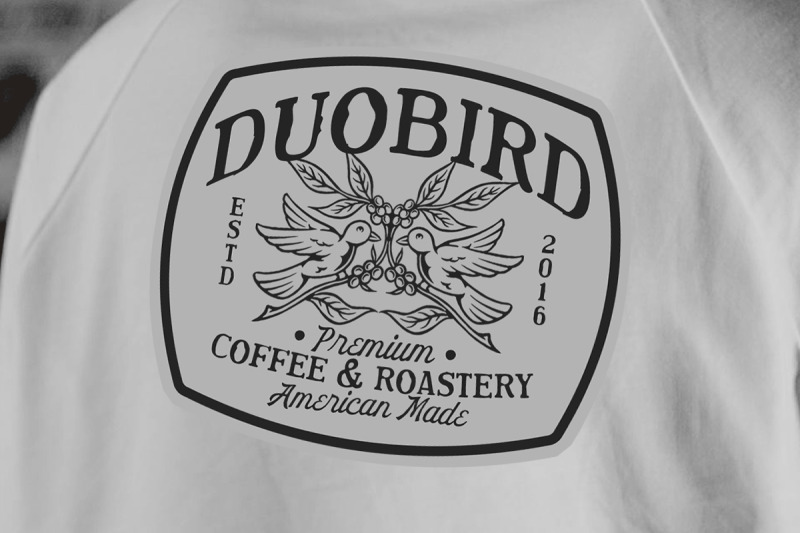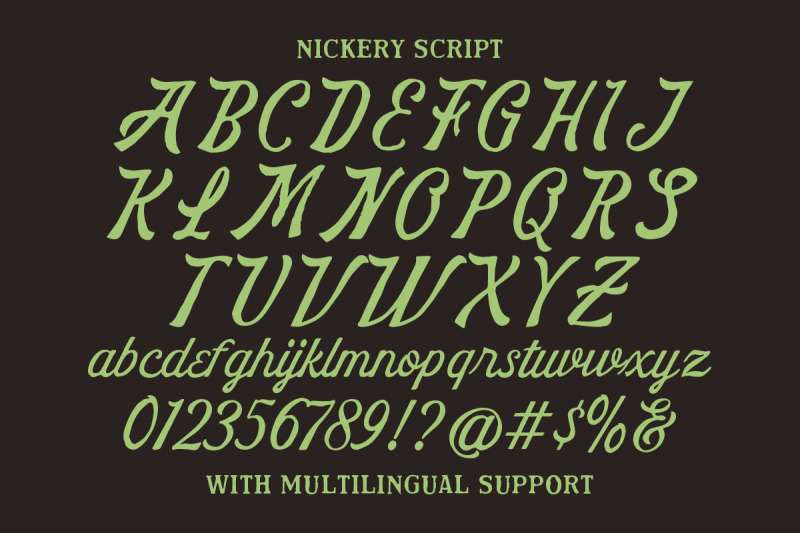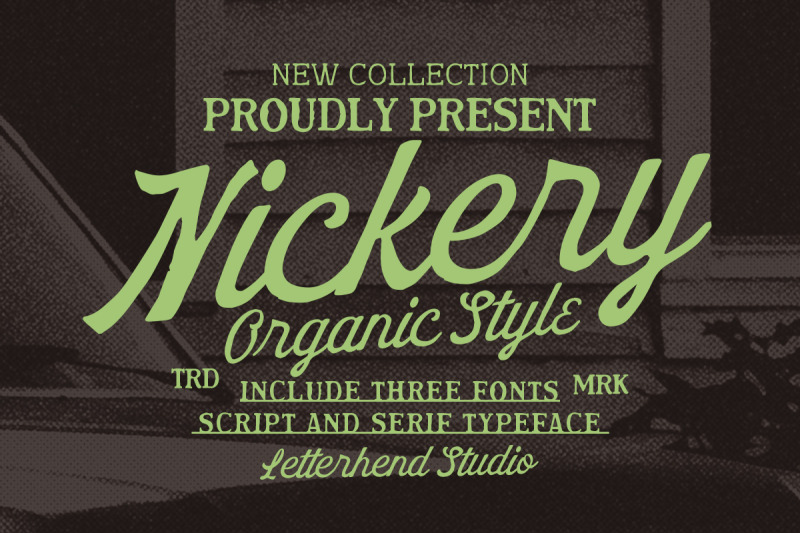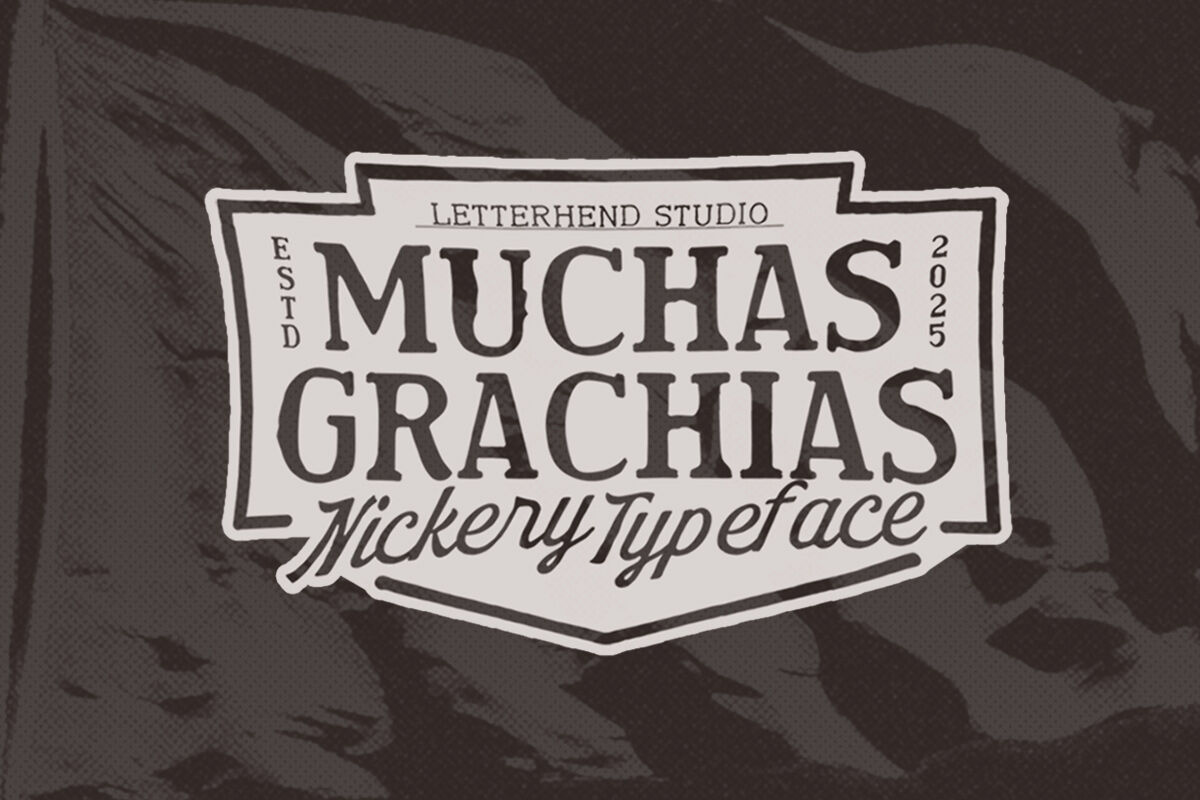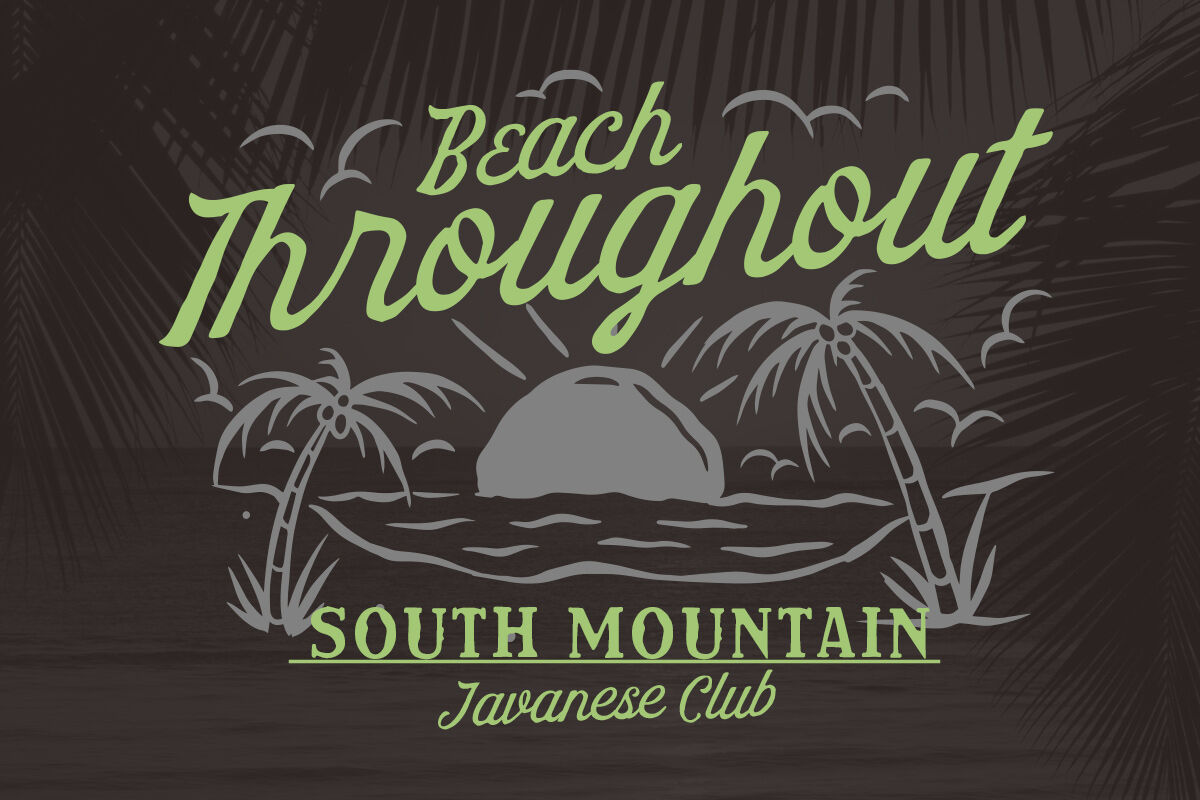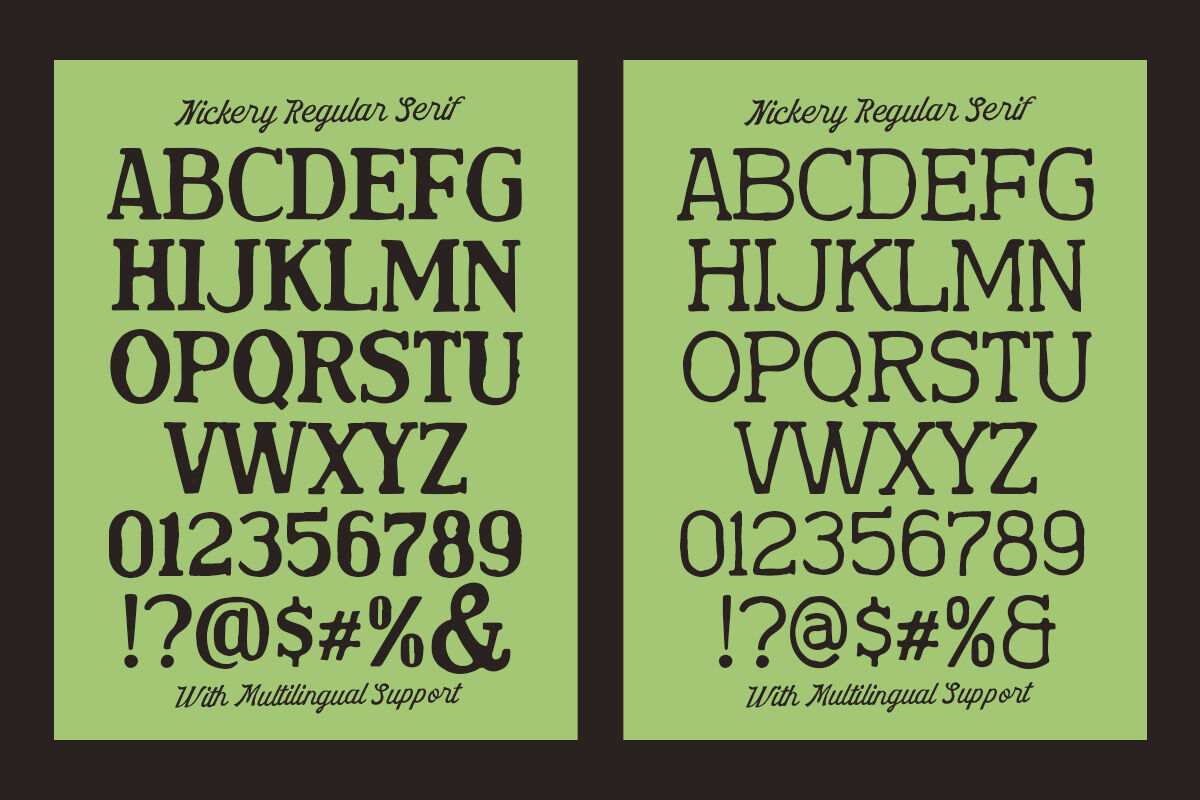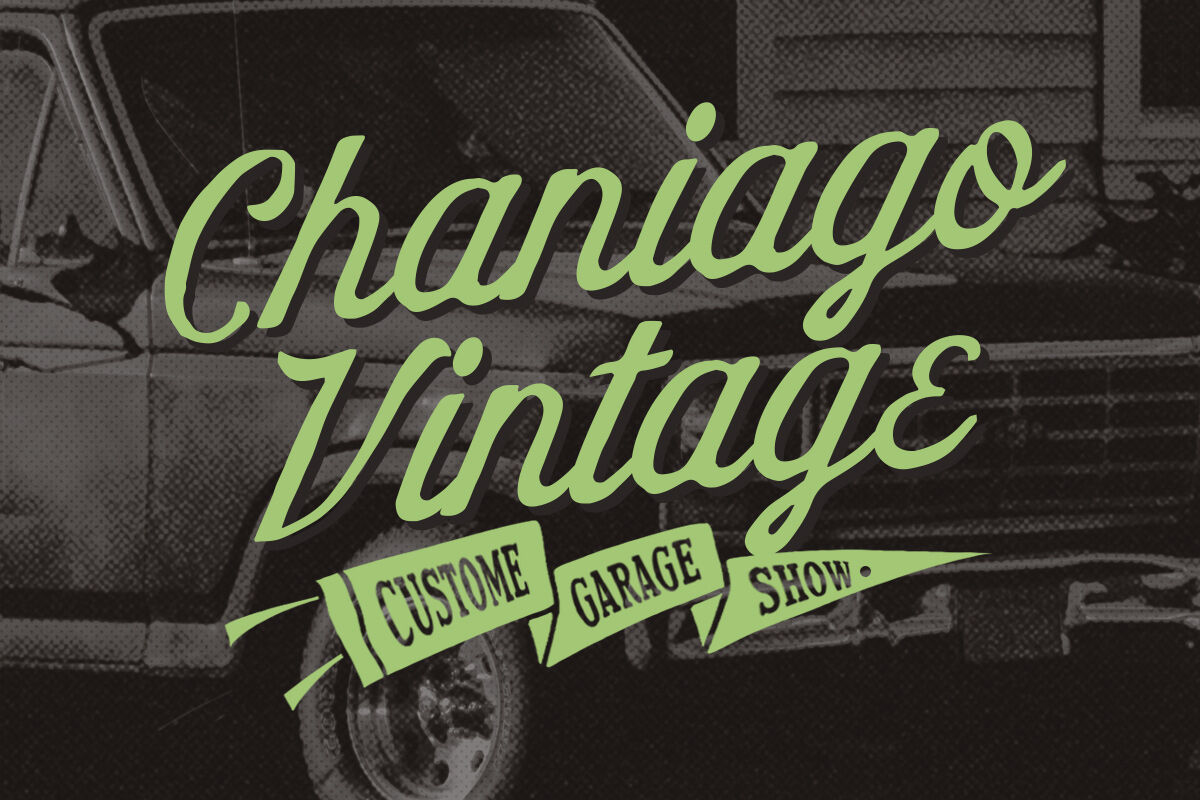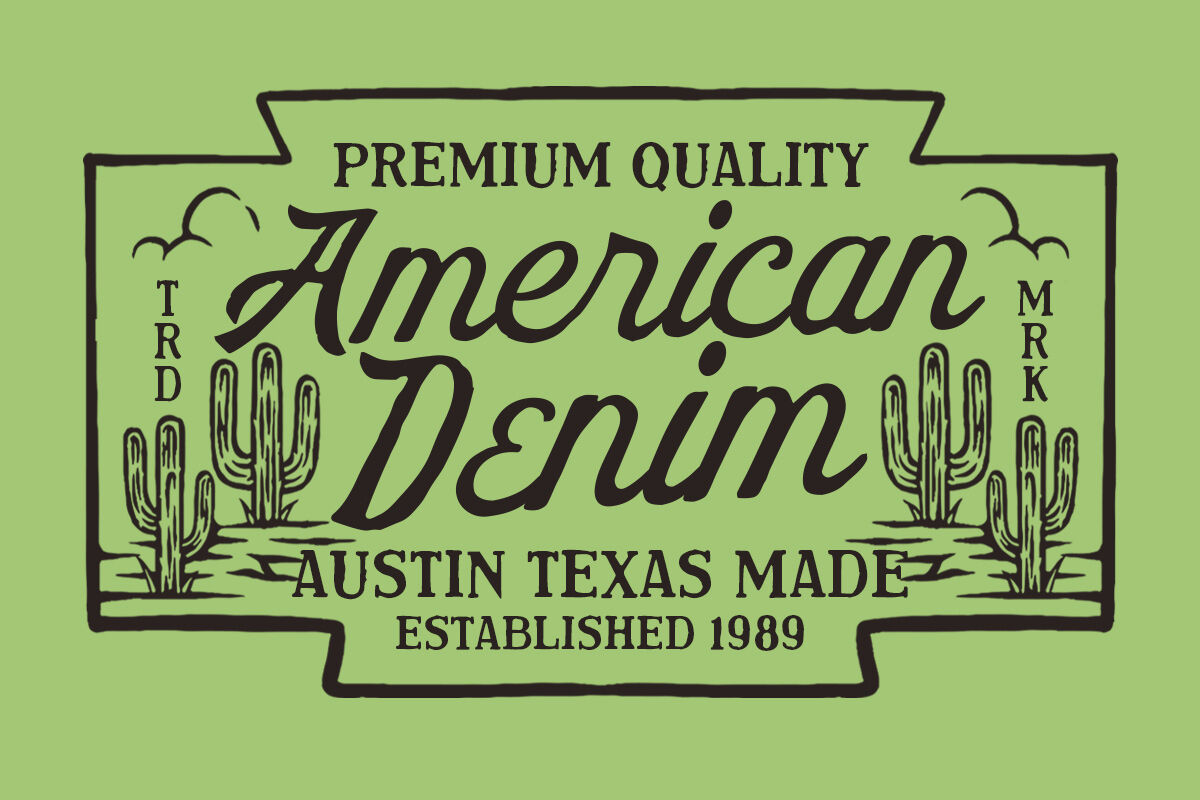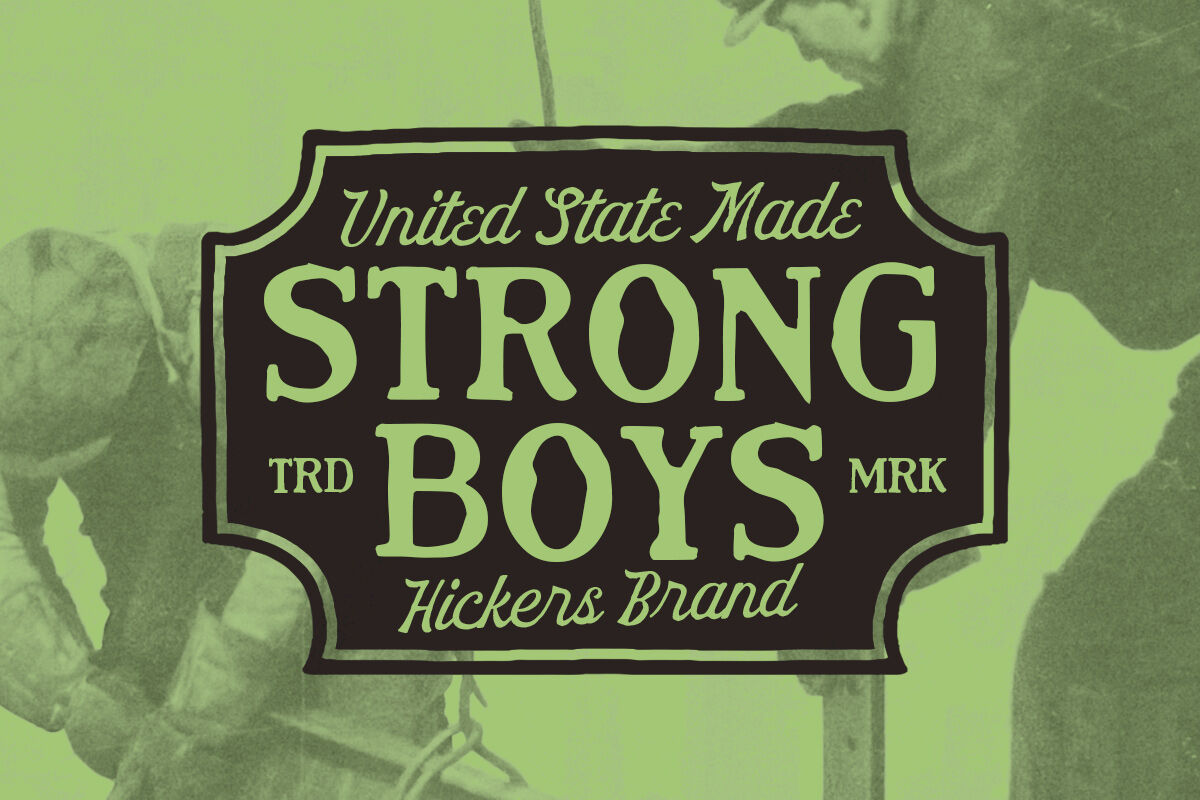
Nickery is a bold and organic-style font that includes three styles: script and serif typefaces. It blends a handcrafted, vintage look with clean readability, making it perfect for logos, product packaging, posters, branding, and apparel. With its natural flow and classic charm, Nickery brings a warm, rustic feel to both modern and retro design projects.
Uppercase & lowercase
Numbers and punctuation
Alternates & Ligatures
Multilingual Support